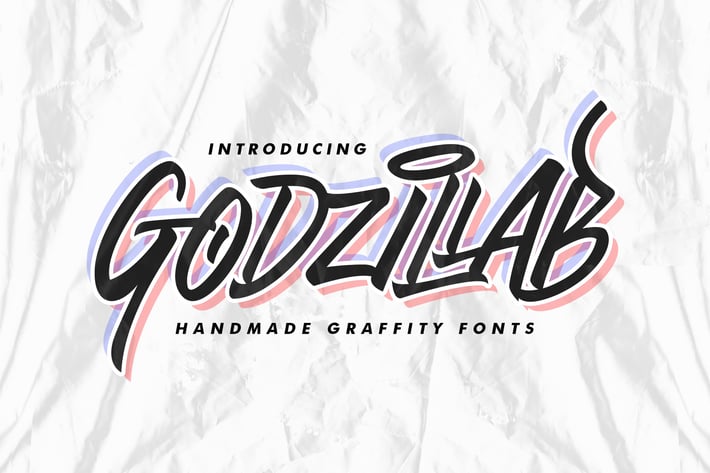
Godzillab - Handmade Graffity Font
Godzillab is perfect to use for Logotype, Letterhead, Poster, Apparel Design, Label and etc.
The alternative characters were divided into several features such as Stylistic Alternates and Ligature.
Fonts include Multilingual Support